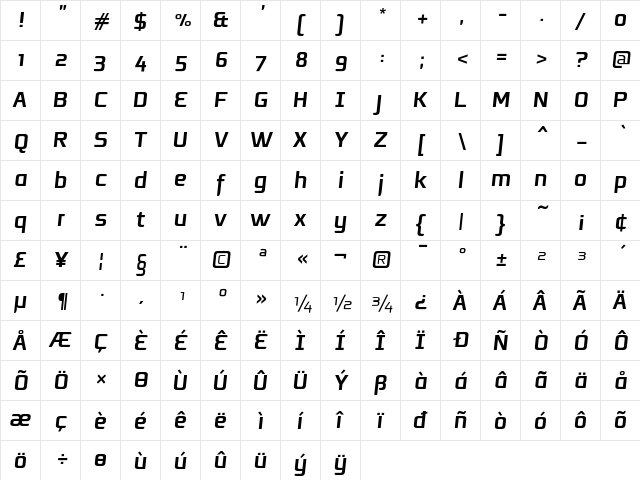
Resea Bold Italic Font Preview
Design Context for Resea Typeface
Resea takes a measured approach to typography — its balanced proportions and neutral character make it a reliable workhorse for both digital and print work. The slanted form adds forward momentum and visual energy. The heavy weight commands attention and anchors typographic hierarchies.